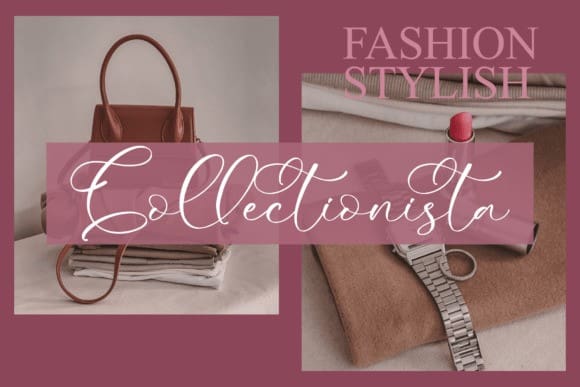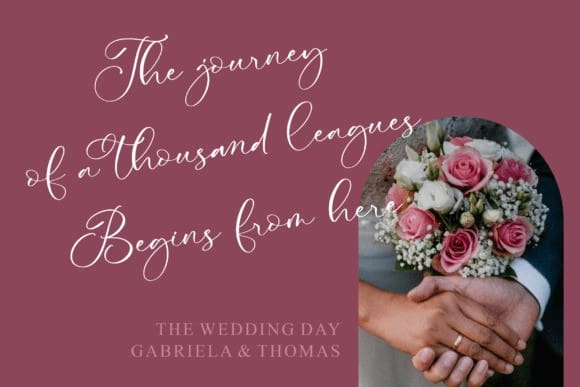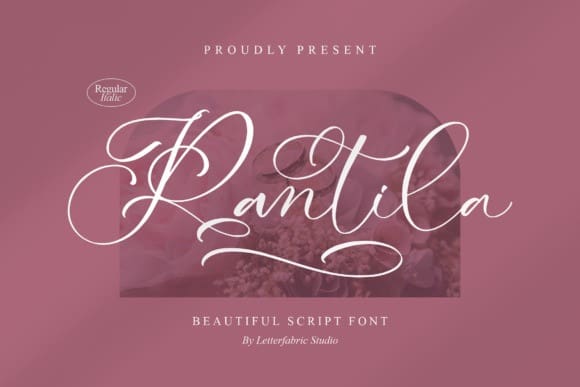
Rantila Font
Rantila Font – Beautiful Script Font suitable for any projects such as logos, branding projects, homeware designs, product packaging, mugs, quotes, posters, shopping bags, t-shirts, book covers, name cards, invitation cards, greeting cards, labels, photography, watermark, special events, and all your other lovely projects that need a beautiful script taste.